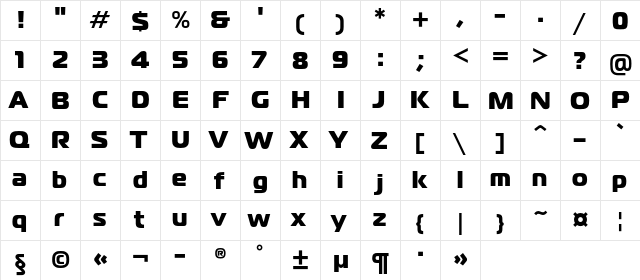
MagistralBlackC Regular
Design Context for MagistralBlackC Typeface
MagistralBlackC offers clean, dependable letterforms without strong stylistic allegiance, making it a practical choice for designers who need flexibility.
Pro Tip: Use MagistralBlackC in both headline and body roles to test its range before committing to a single application.